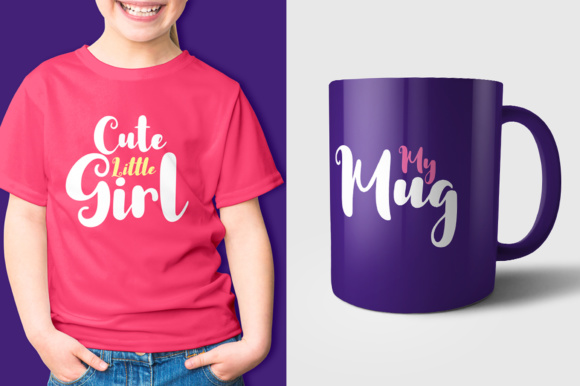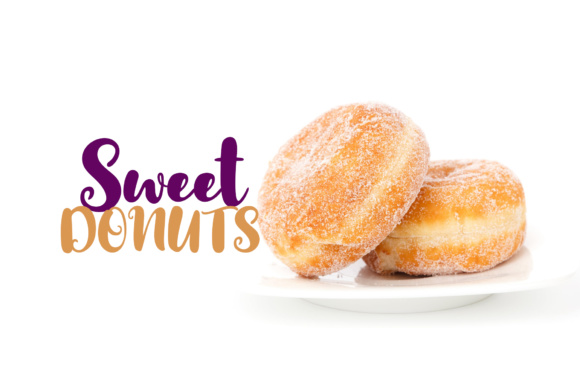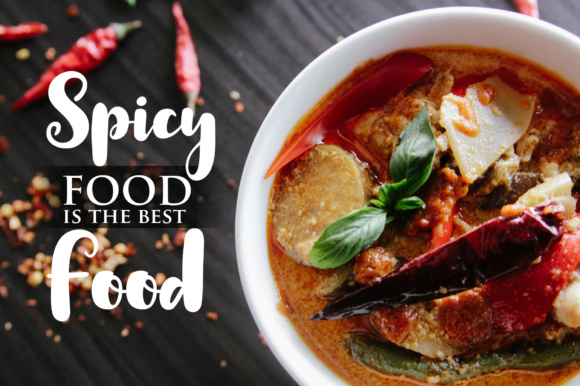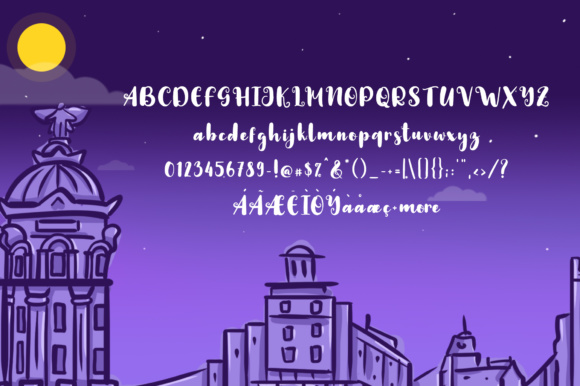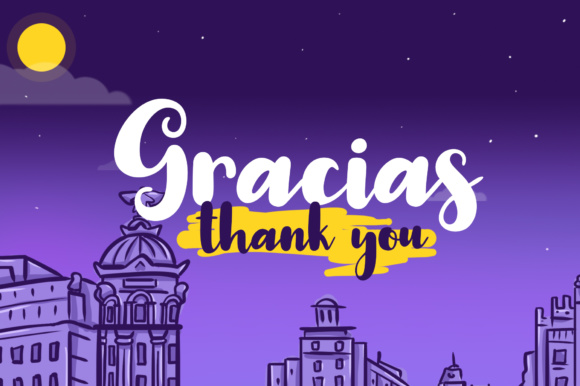
Night in Madrid Font
About Night in Madrid Font
Night in Madrid is a fun display font which comes in two styles: regular & gradient. It’s suitable for logos, greeting cards, branding, posters and any other design that needs a striking typeface.